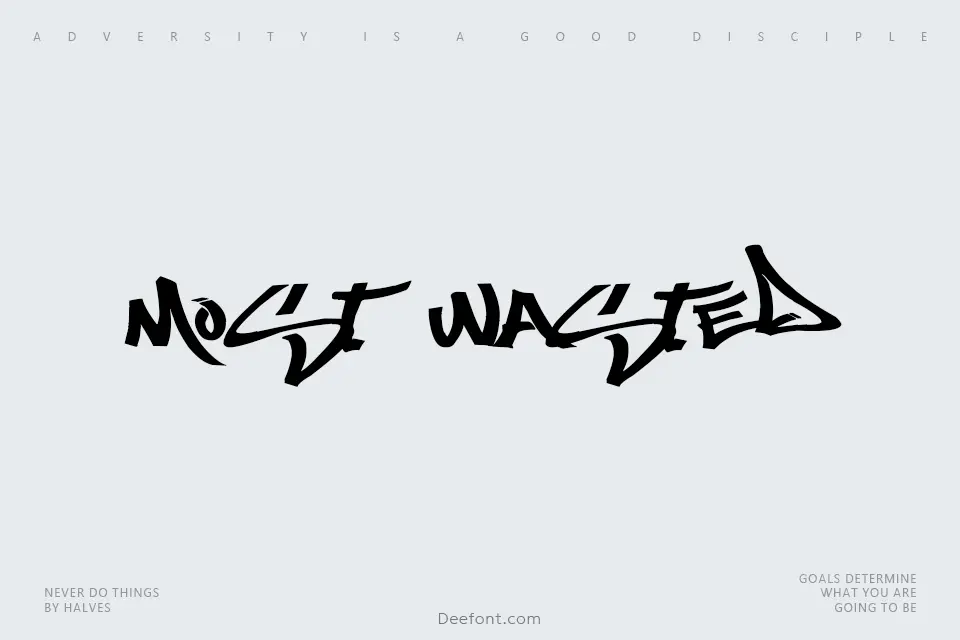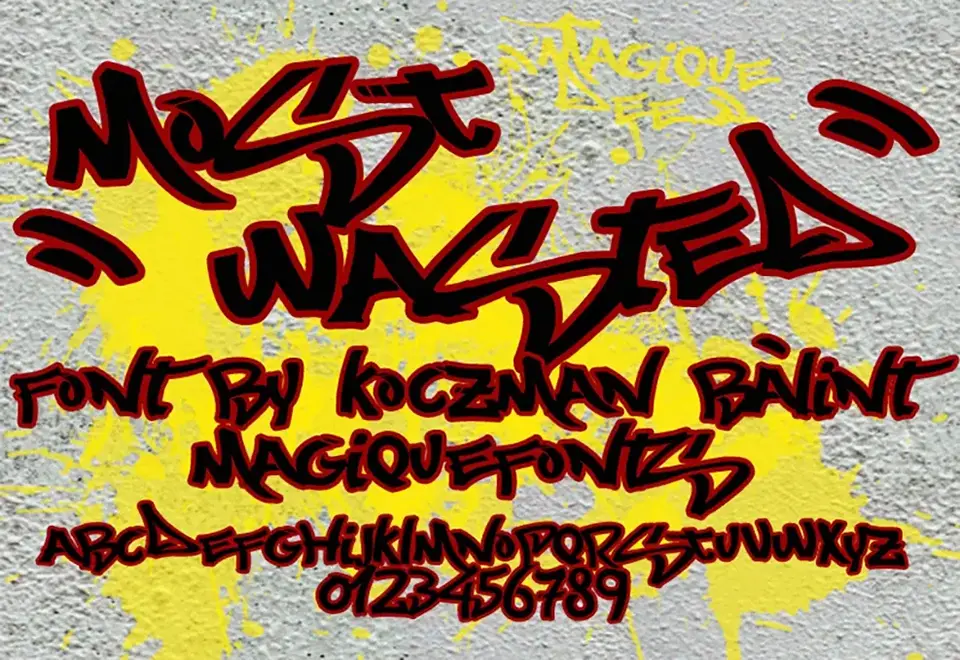
Most Wasted Font
Most Wasted is a distinctive script and graffiti typeface designed by Magique Fonts. This eye-catching display font combines urban street art aesthetics with bold, expressive letterforms, making it perfect for creative projects that demand visual impact. With its energetic character design, Most Wasted excels at headlines, posters, social media graphics, and artistic compositions where a rebellious, contemporary style is desired.